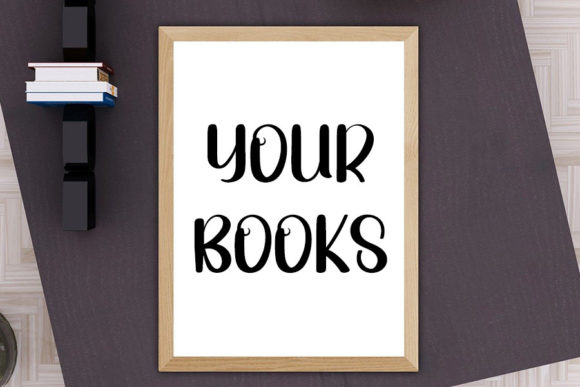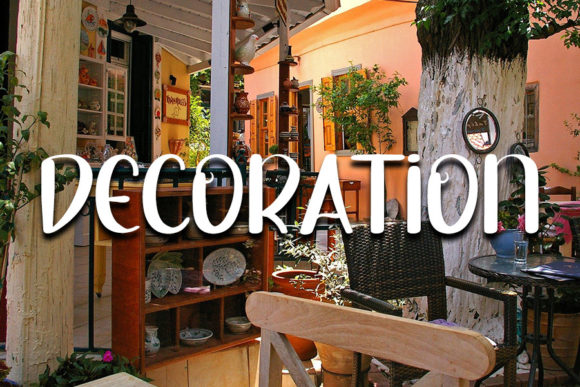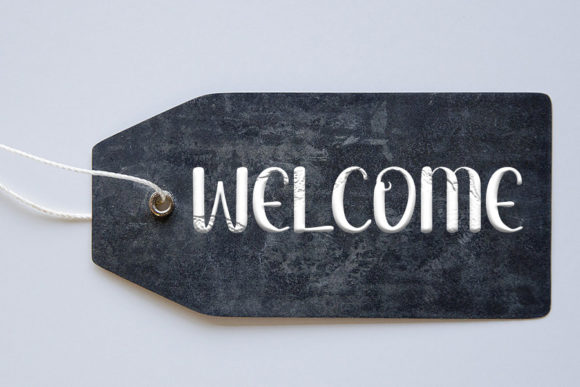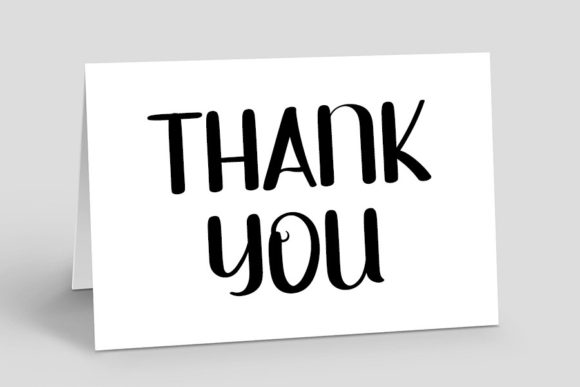
Adding a Touch of Whimsy with Bubbles Font
Have you ever found yourself scribbling down a creative idea in a notebook, only to realize that the words on the page seem to leap off the page with a sense of excitement and energy? That’s the magic of the handwritten word, and it’s precisely this feeling that the Bubbles Font aims to capture.
Bubbles Font is a stylish handwritten font with a contemporary atmosphere and impeccable form, inspired by the timeless classic calligraphy. Designed to enhance the beauty of your projects, this font is perfect for adding a touch of whimsy and personality to your designs.
For designers, the Bubbles Font is a valuable tool, allowing you to bring a sense of warmth and approachability to your work. With its balanced and varied style, this font is sure to elevate your projects and leave a lasting impression on your audience.
Bubbles Font Key Features
- Font Family: Bubbles Font is a sans-serif font family with a playful and modern feel.
- Unique Characteristics: Bubbles Font features a unique bubble-like design element that adds a touch of whimsy and fun to any text, making it ideal for creative and playful projects.
Bubbles Font Review
Overall, I’d say Bubbles Font is a fun and playful addition to any design project. ✨ I love how it captures the carefree, whimsical feel of childhood. The font’s bubbly texture and rounded edges make it perfect for creating a lighthearted and approachable atmosphere.
- ✨ Versatility: Bubbles Font is suitable for a wide range of design applications, from children’s books to social media graphics.
- ✨ Customizability: The font offers various styles and weights, allowing designers to fine-tune the look to suit their needs.
- ✨ Readability: Despite its playful appearance, Bubbles Font is surprisingly legible, making it a great choice for body text.
However, I do have a few concerns:
- ⚠️ Limited legibility at small font sizes: While Bubbles Font is generally readable, it can become fuzzy and difficult to decipher when reduced to very small sizes.
- ⚠️ Limited support for complex text: Due to its bubbly texture, Bubbles Font may not be the best choice for text-heavy designs or those requiring precise control over letter spacing.
In conclusion, Bubbles Font is a delightful addition to any design project, but it’s essential to consider its limitations when making a decision. With careful planning and application, it can add a touch of magic to your designs.
The Bubbles Font is ideal for:
– Children’s party decorations and invitations
– Whimsical and playful designs
– Custom graphics and illustrations
– Eye-catching presentations and documents